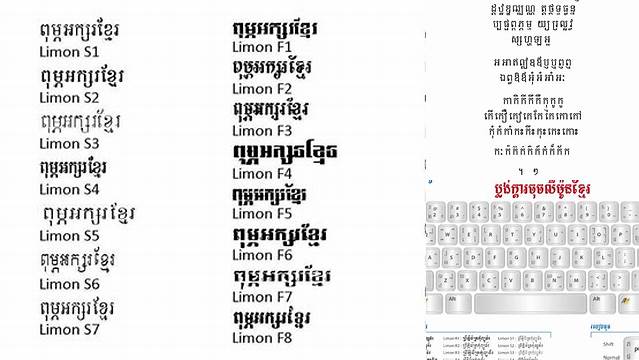
Khmer Font Limon S1: An Introduction
Alright, let's kick things off by getting to know the Khmer Font Limon S1 a little better. This font is specifically designed to beautifully render the Khmer script, which is used to write the Khmer language, spoken by millions in Cambodia and beyond. What makes Limon S1 special? Well, it's designed to be both aesthetically pleasing and highly readable. That's a win-win! The font features the unique curves and strokes that are characteristic of Khmer writing. When you use it on your Android, you'll notice that the text looks clean, clear, and easy on the eyes. So, if you're looking to improve the way Khmer text appears on your Android device, the Limon S1 font is a fantastic option. The font has been carefully crafted to provide a great balance between style and legibility. If you want to make your device look more authentic or if you just want to enjoy reading Khmer, using this font will make a big difference. It has been optimized for readability on small screens, ensuring that the text is still easy to read, even when displayed on your phone or tablet. This font is compatible with a wide range of Android devices, meaning you should have no trouble getting it to work on your device. You can also easily use the font in various applications, whether it's for texting, browsing the web, or using other apps that support font customization. Get ready to take your Khmer text experience to a whole new level!